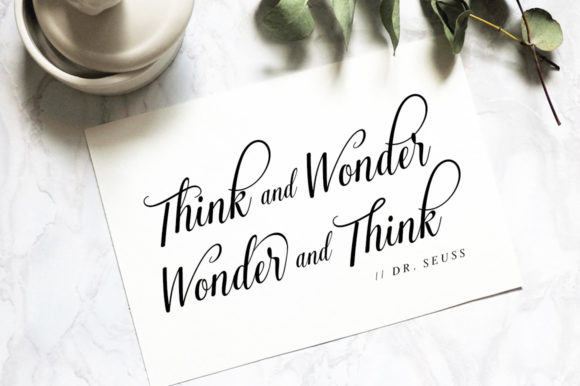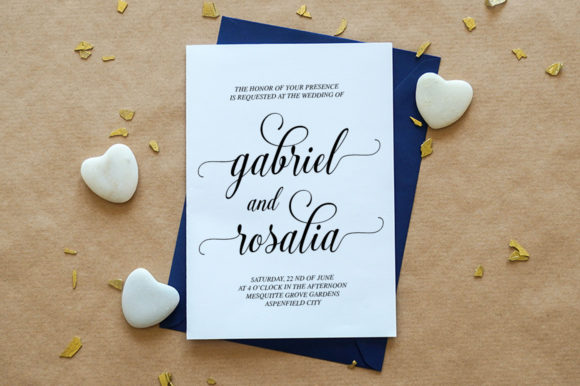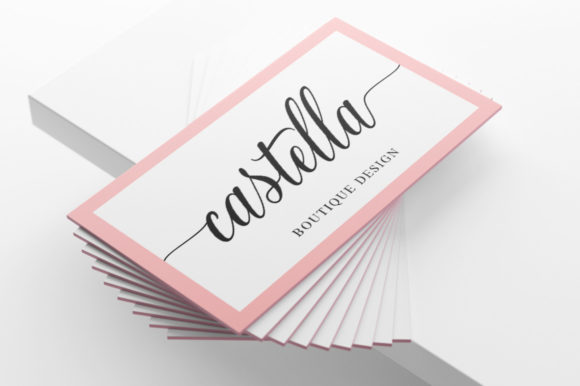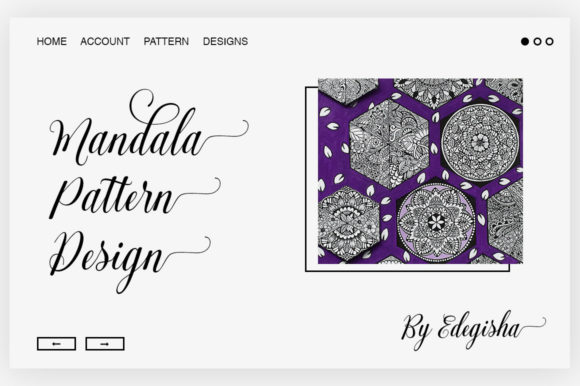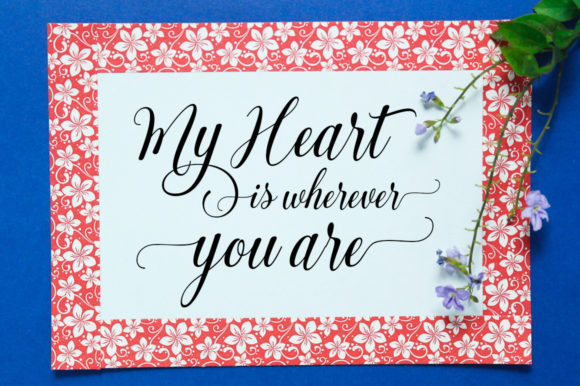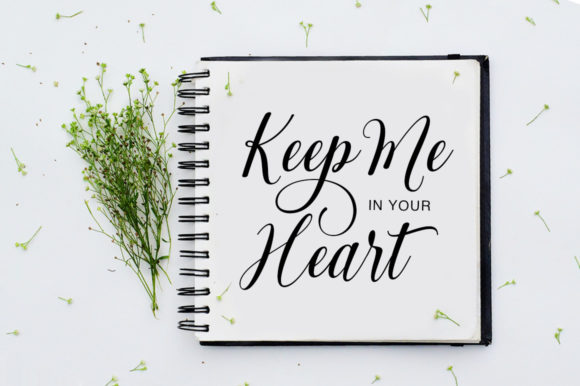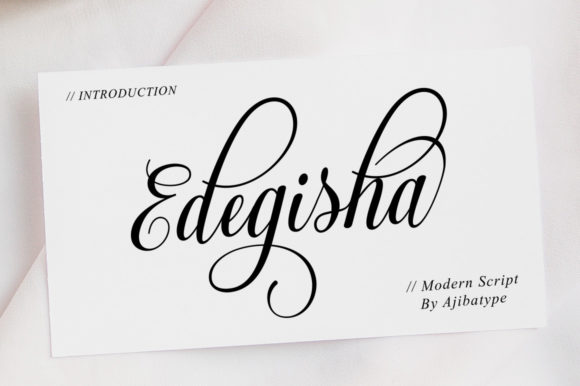
Edegisha Script Font: Elevate Your Designs with Elegance and Sophistication
In the world of typography, a font can make or break a design. For designers and crafters seeking to add a touch of class and sophistication to their work, the Edegisha Script Font is an exceptional choice. This beautiful and refined script font boasts a modern look that is perfect for a wide range of applications, from logos and branding to invitations, stationery, wedding designs, and social media posts.
What Makes Edegisha Script Font Stand Out?
Edegisha Script Font is distinguished by its elegant and classy appearance, making it an ideal selection for projects that demand a high level of sophistication. Its modern aesthetic ensures that your designs are not only refined but also contemporary and appealing. Whether you’re working on a logo, a wedding invitation, or a social media post, this font can help you achieve the desired impact.
One of the key advantages of the Edegisha Script Font is its versatility. It can be used across various platforms and for multiple purposes, including:
- Logos and Branding: Create a lasting impression with a logo that exudes elegance and professionalism.
- Invitations and Stationery: Add a touch of sophistication to your invitations, greeting cards, and stationery.
- Wedding Designs: Make your wedding designs, such as invitations, programs, and place cards, truly special with this beautiful script font.
- Social Media Posts: Elevate your social media presence with stylish and engaging posts.
Why Choose Edegisha Script Font?
With numerous fonts available, why should you choose Edegisha Script Font for your projects? Here are a few compelling reasons:
- Elegance: Its refined and classy look makes it perfect for projects that require a sophisticated touch.
- Versatility: Suitable for a wide range of applications, from digital to print.
- Modern Appeal: Keeps your designs contemporary and appealing.
Tips for Using Edegisha Script Font
To maximize the potential of Edegisha Script Font, consider the following tips:
- Pair it Wisely: Combine it with complementary fonts to create visual interest.
- Experiment with Sizes: Play with different font sizes to add hierarchy and emphasis to your designs.
- Utilize Swashes: Take advantage of the swashes to add decorative touches.
- Keep it Simple: Don’t overcrowd your design; let the font’s elegance shine through.
Edegisha Script Font is a versatile and elegant font that can elevate your designs to new heights. Its classy, modern look, combined with PUA encoding for easy access to glyphs and swashes, makes it an excellent choice for designers and crafters. Whether you’re creating logos, invitations, wedding designs, or social media posts, this font is sure to add a touch of sophistication and refinement. Explore the possibilities with Edegisha Script Font and discover how it can transform your projects.